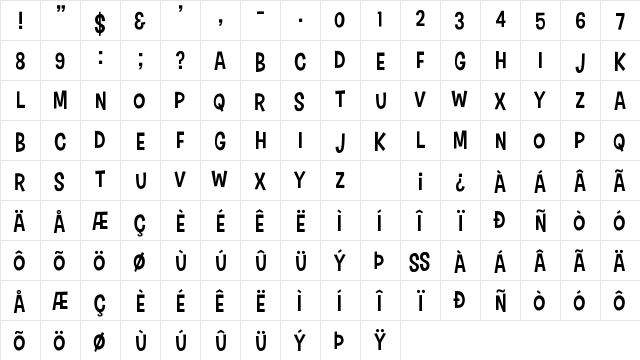
Carton Six Regular
Design Context for Carton Six Typeface
Carton Six offers clean, dependable letterforms without strong stylistic allegiance, making it a practical choice for designers who need flexibility.